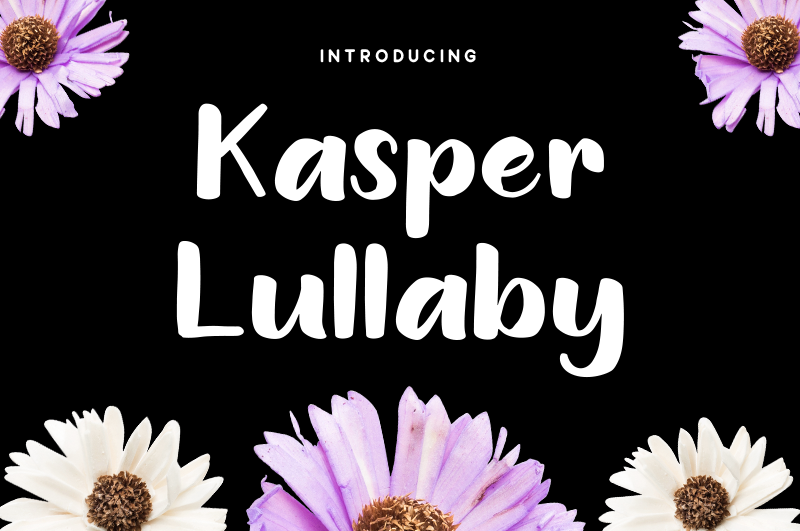
Preview and download Kasper Lullaby Font. Created by Akhmad Reza Fauzi in Script Various styles with Free for personal use license.
This font is for PERSONAL USE ONLY! Kasper Lullaby is a unique handwritten font crafted with care. Get inspired by its cute appearance! --------------------------------------------------------- Any DONATION will be appreciated https://www.paypal.me/akhmadrezafauzi Purchase COMMERCIAL LICENSE: https://grezlinestudio.com/product/kasper-lullaby-font/ Visit my store for special price and discount : https://grezlinestudio.com If you have any questions, feel free to contact me : grezline.studio@gmail.com |